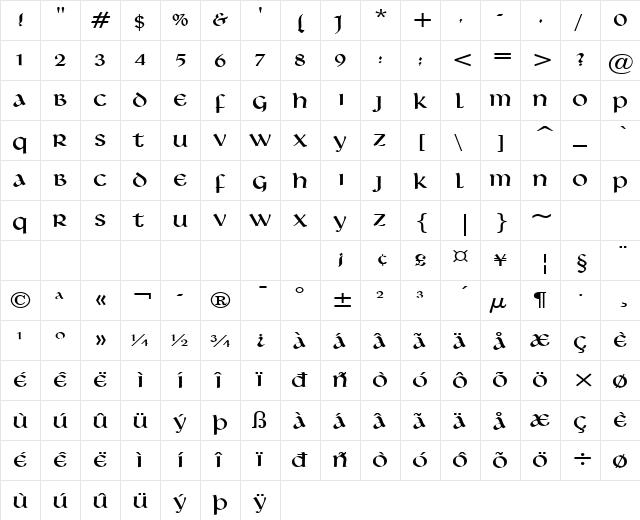
Leo-Extended Normal
Design Context for Leo-Extended Typeface
Leo-Extended is a composed and adaptable typeface that performs quietly and consistently across a wide range of design contexts.